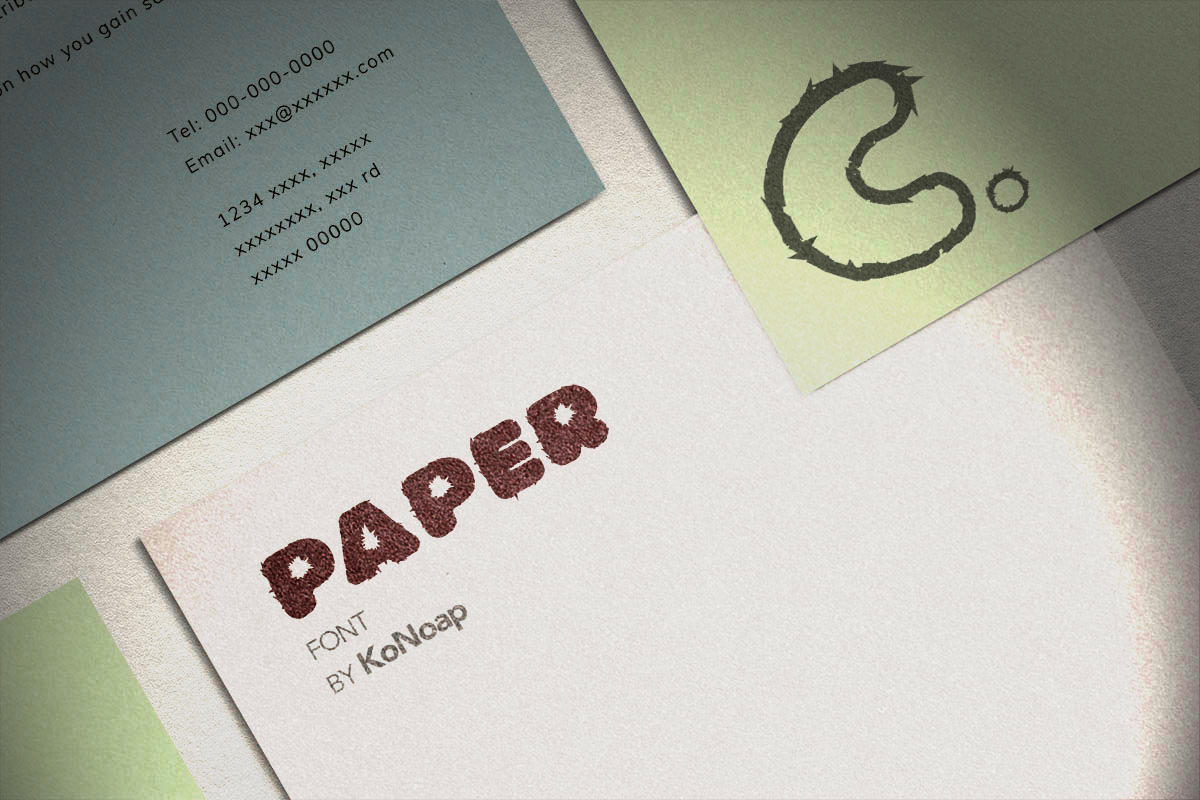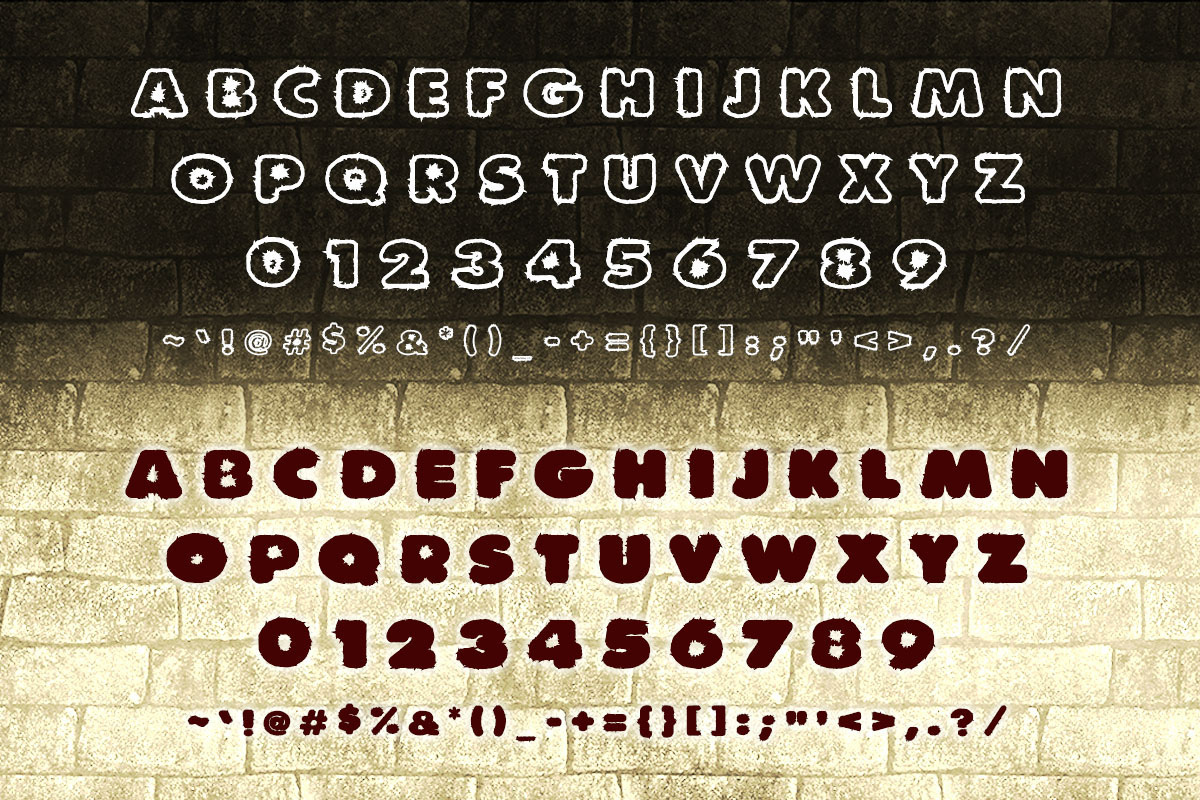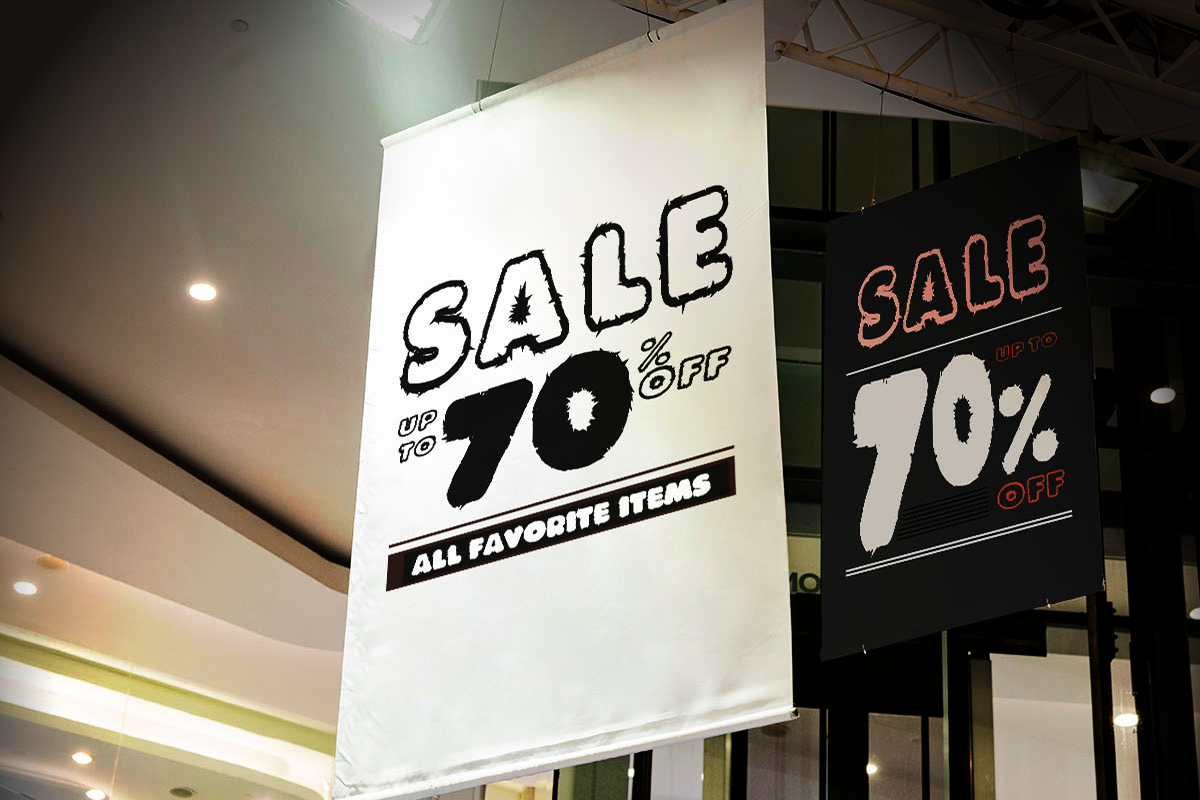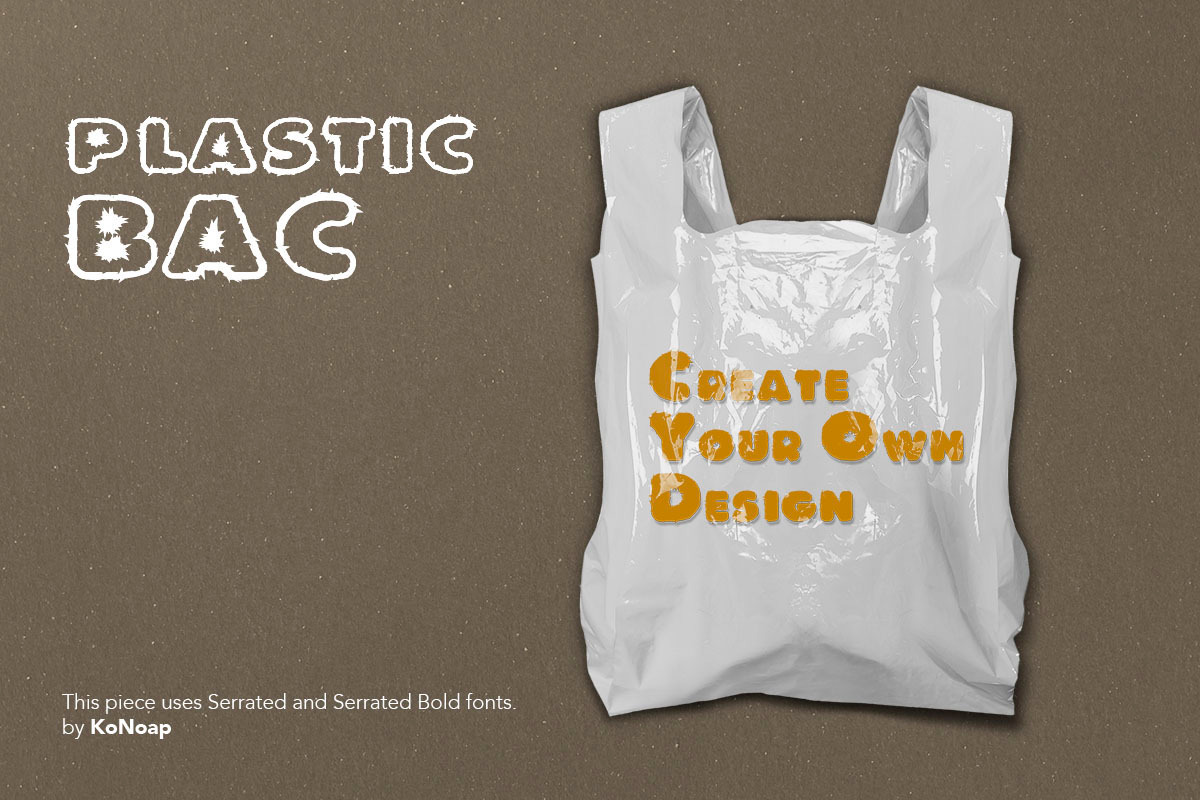
Serrated
Serrated: This is my new font. Very suitable for any design purpose like magazines, packaging, branding, posters, greeting cards, letterhead, and many more other creative project.
The font comes in two styles: Regular and Bold.